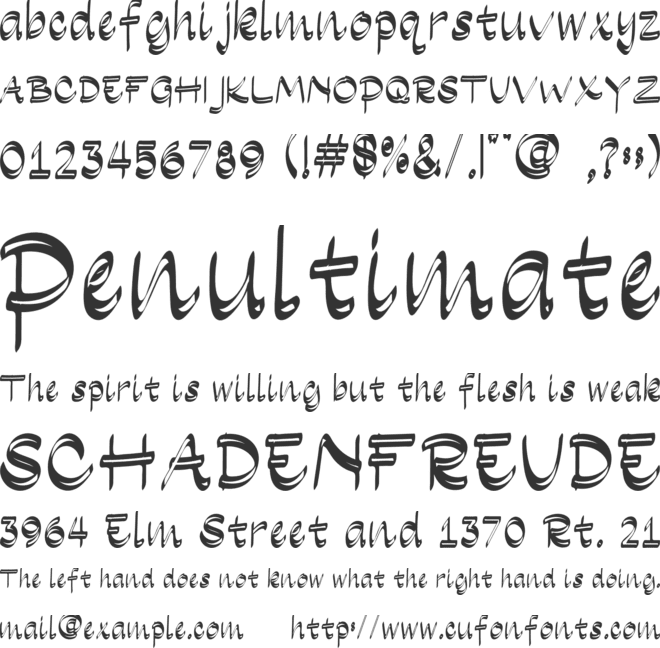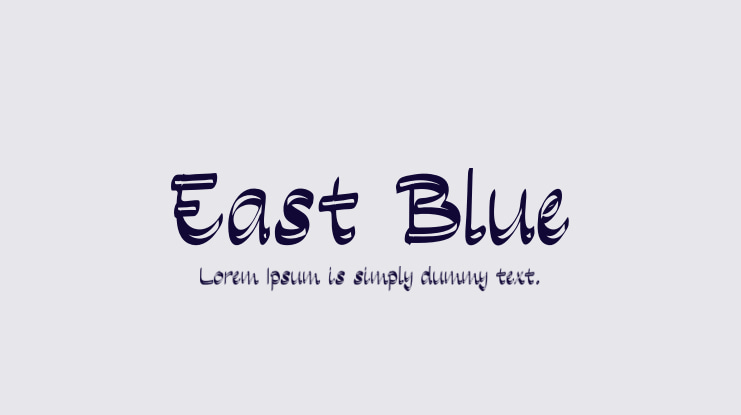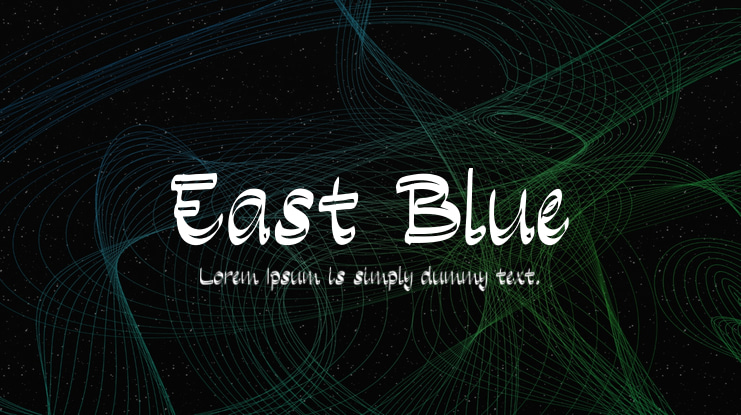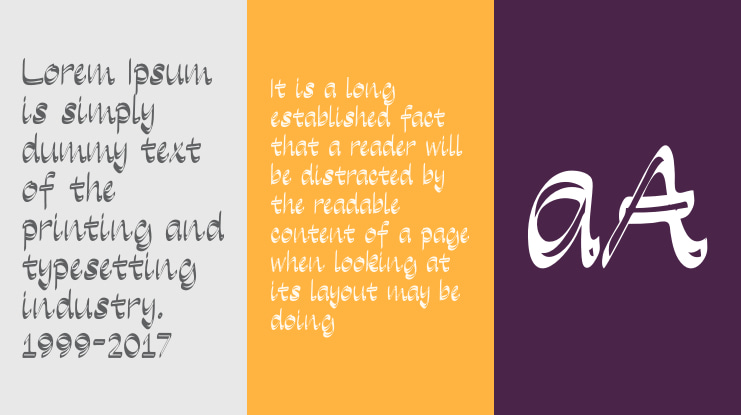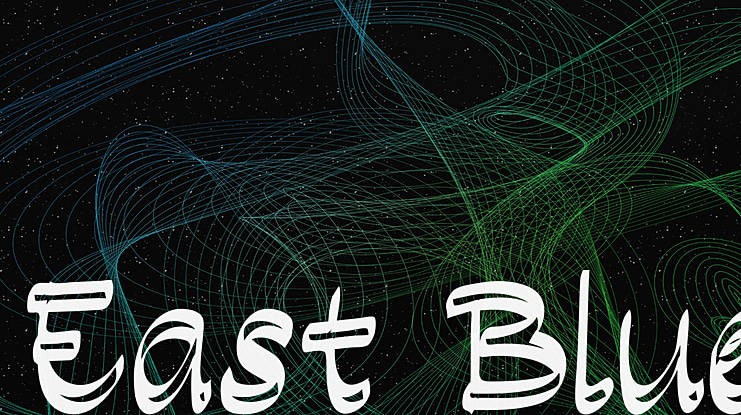
East Blue Font
East Blue is a simple and neat display font. No matter the topic, this font will be an incredible asset to your fonts’ library, as it has the potential to elevate any creation.